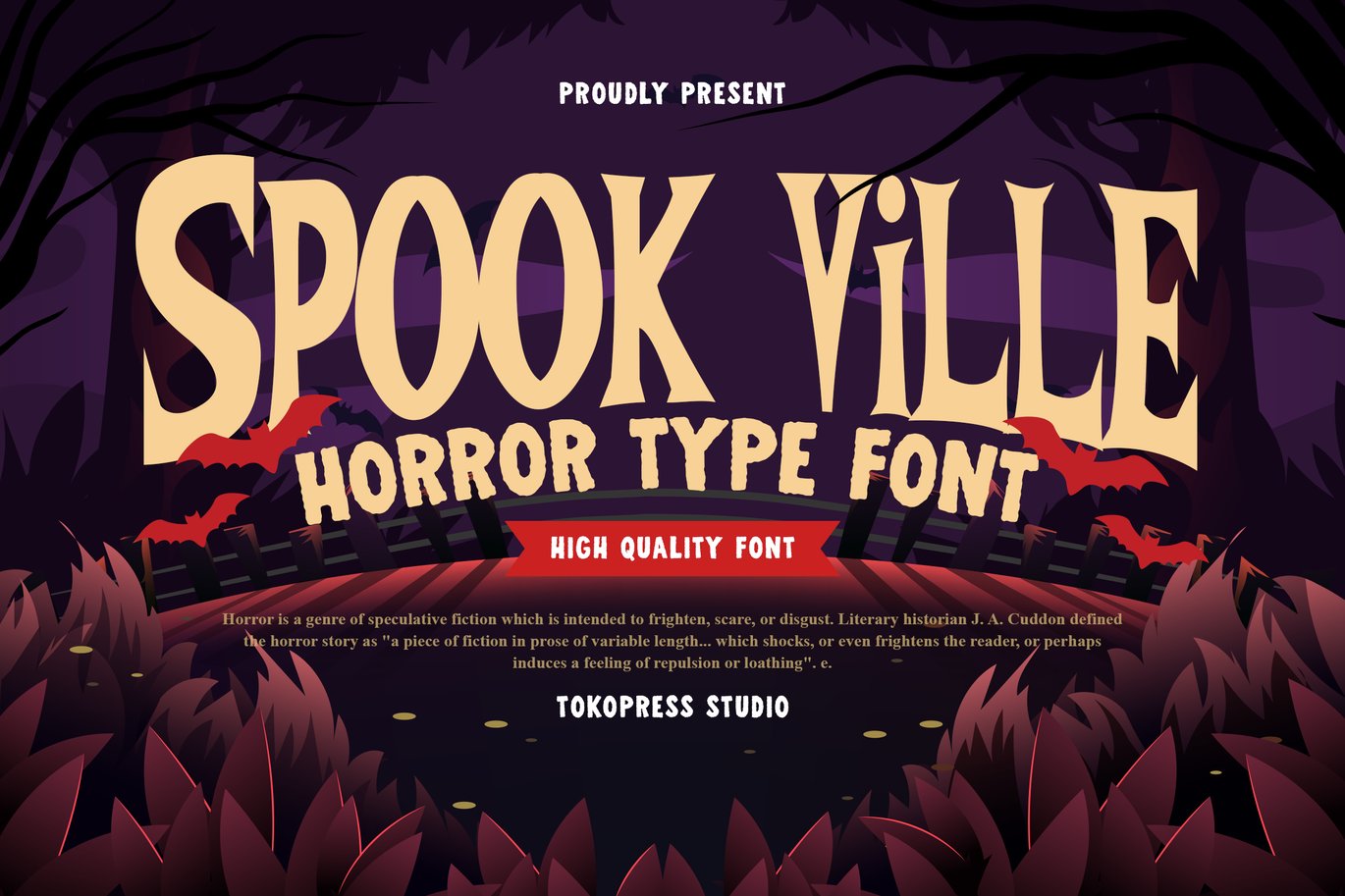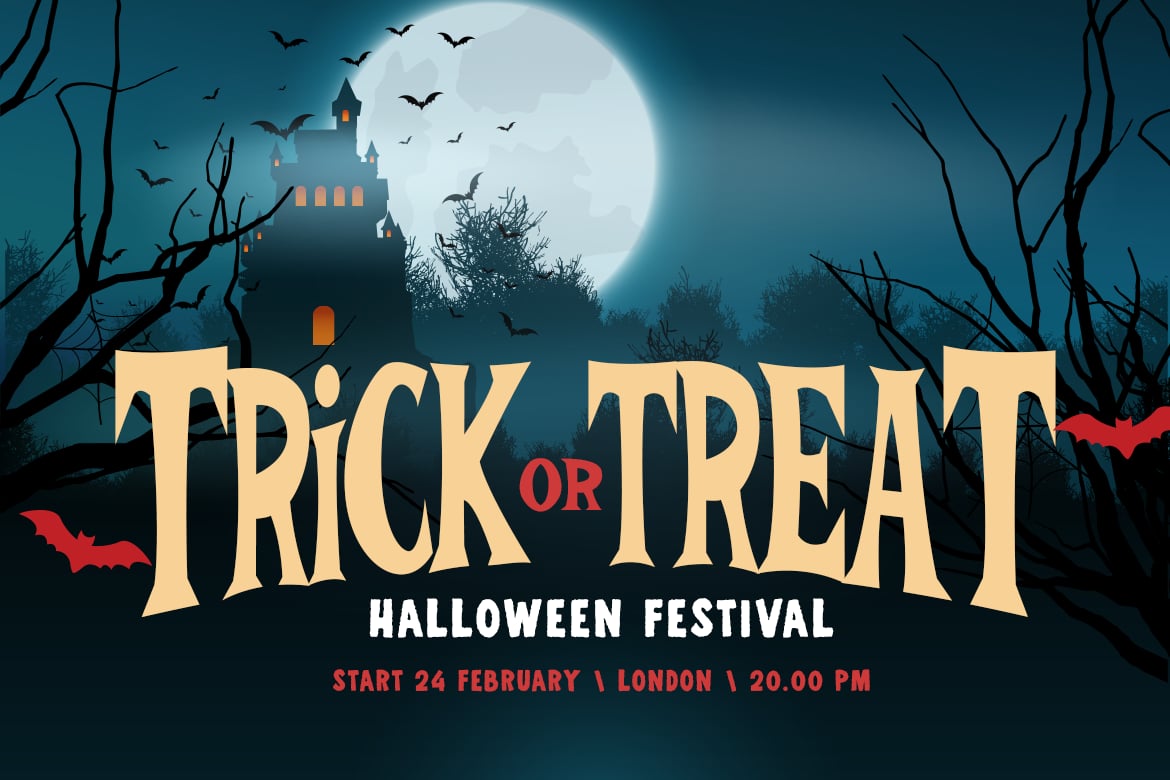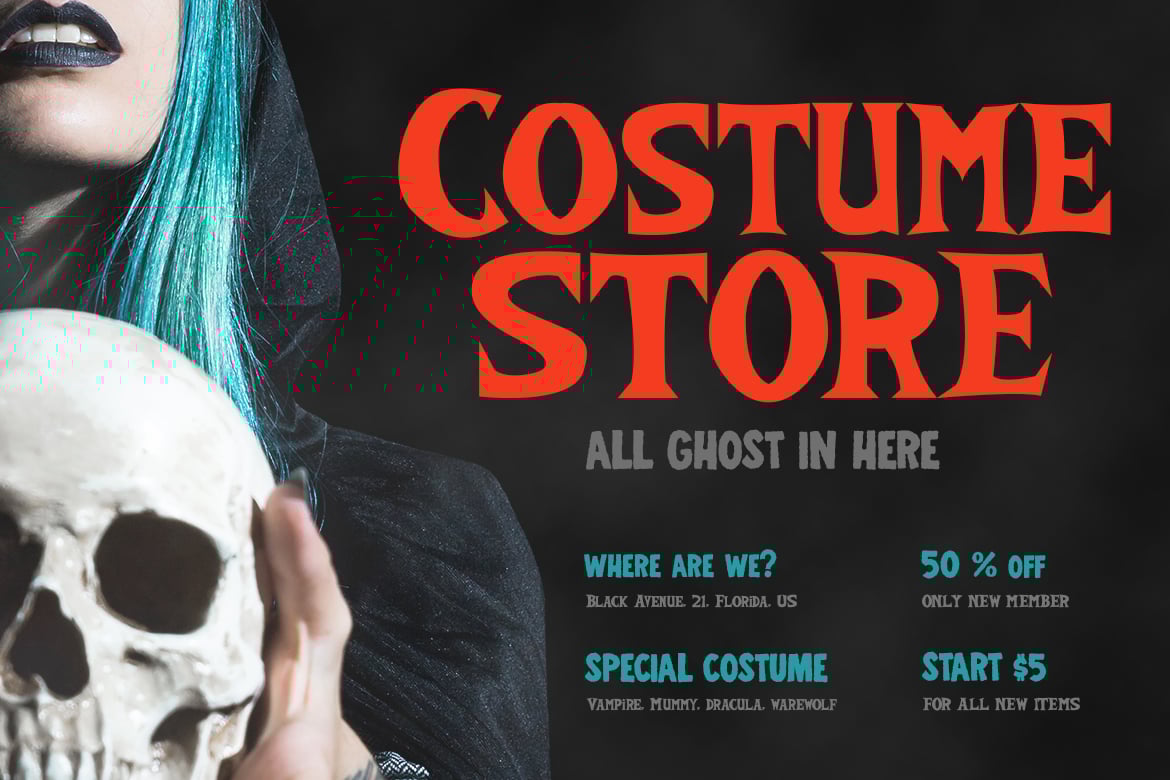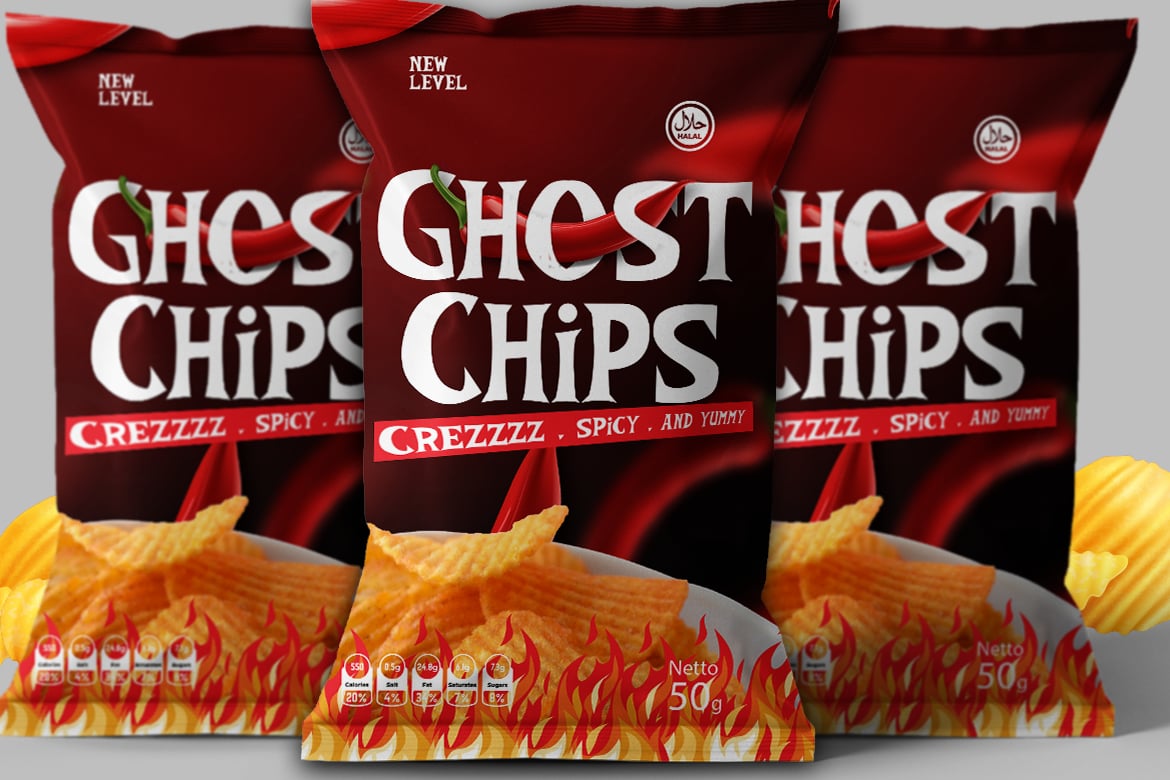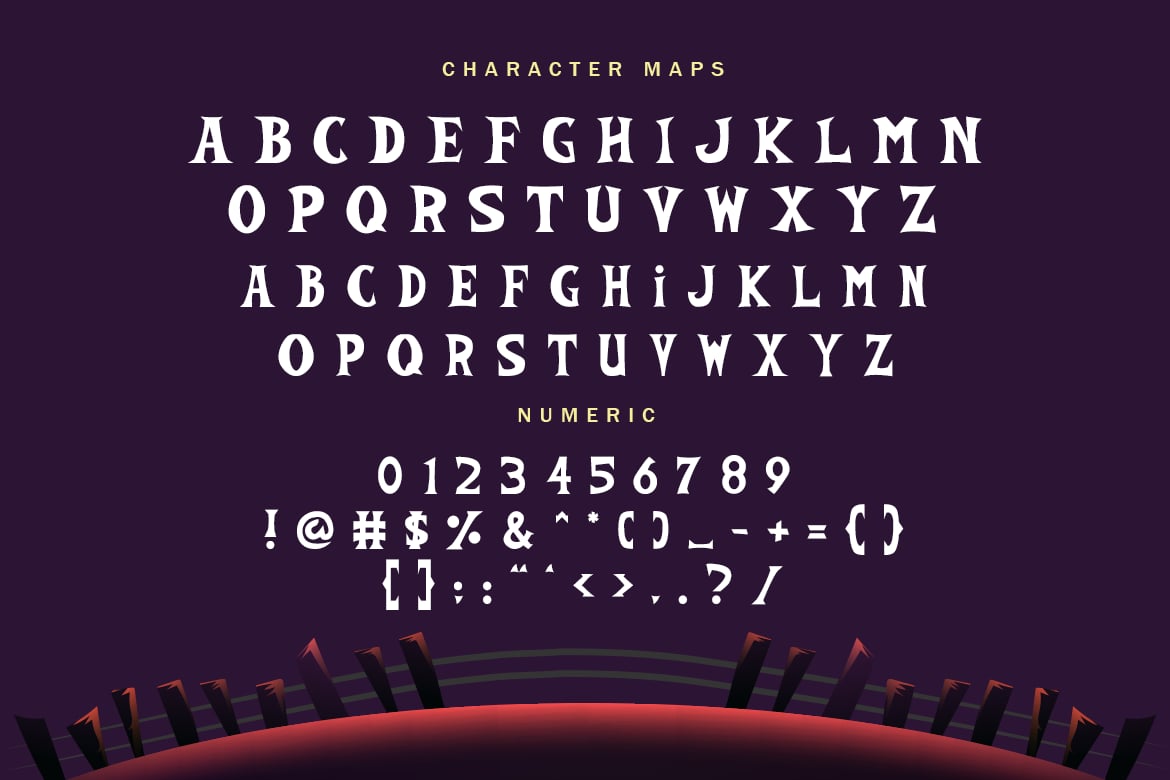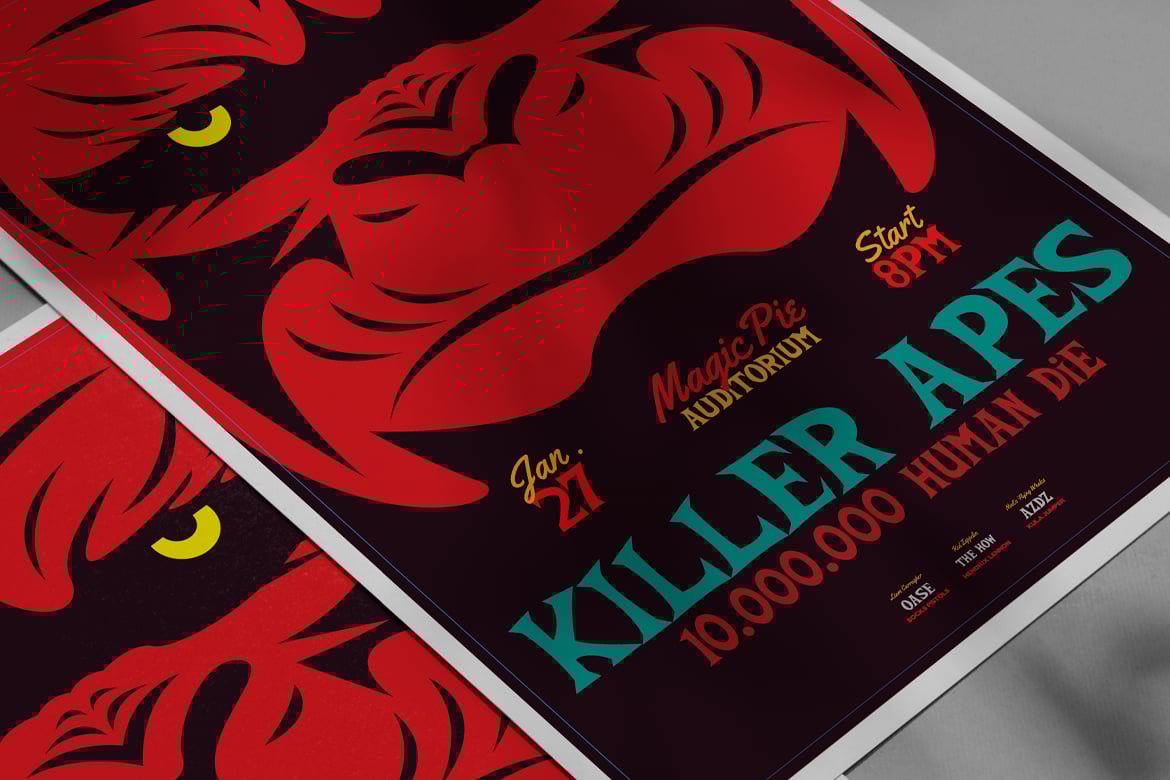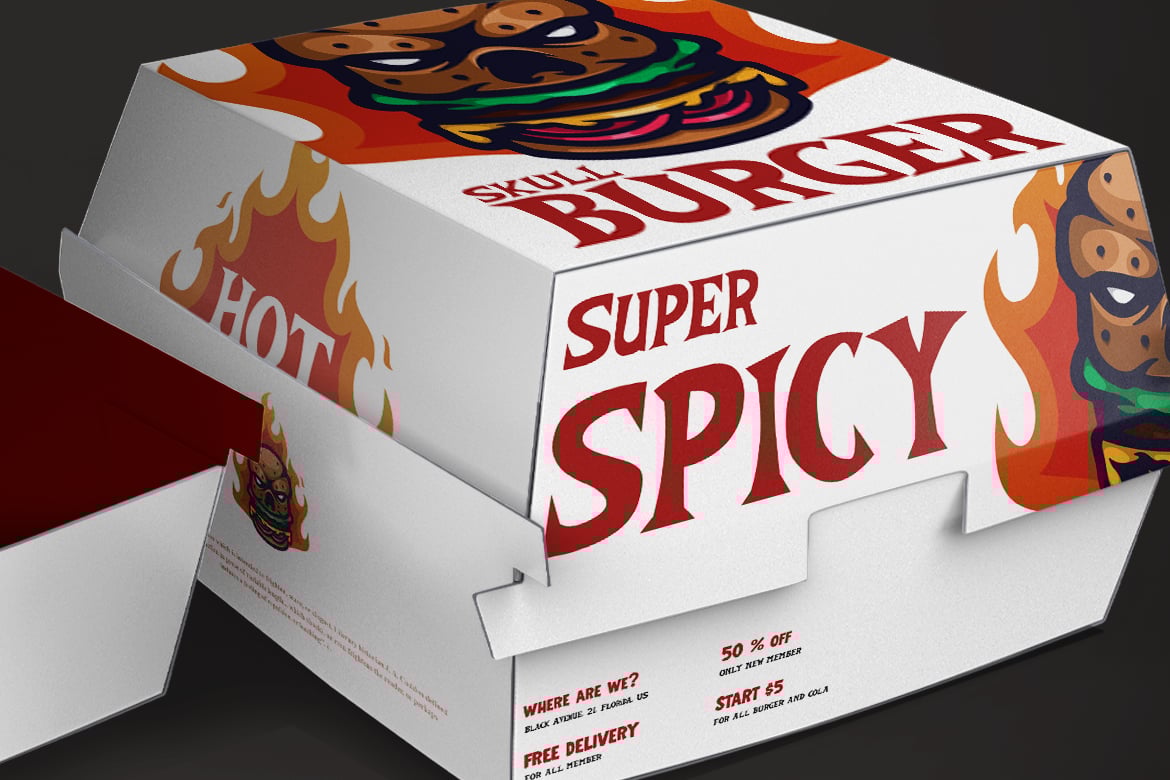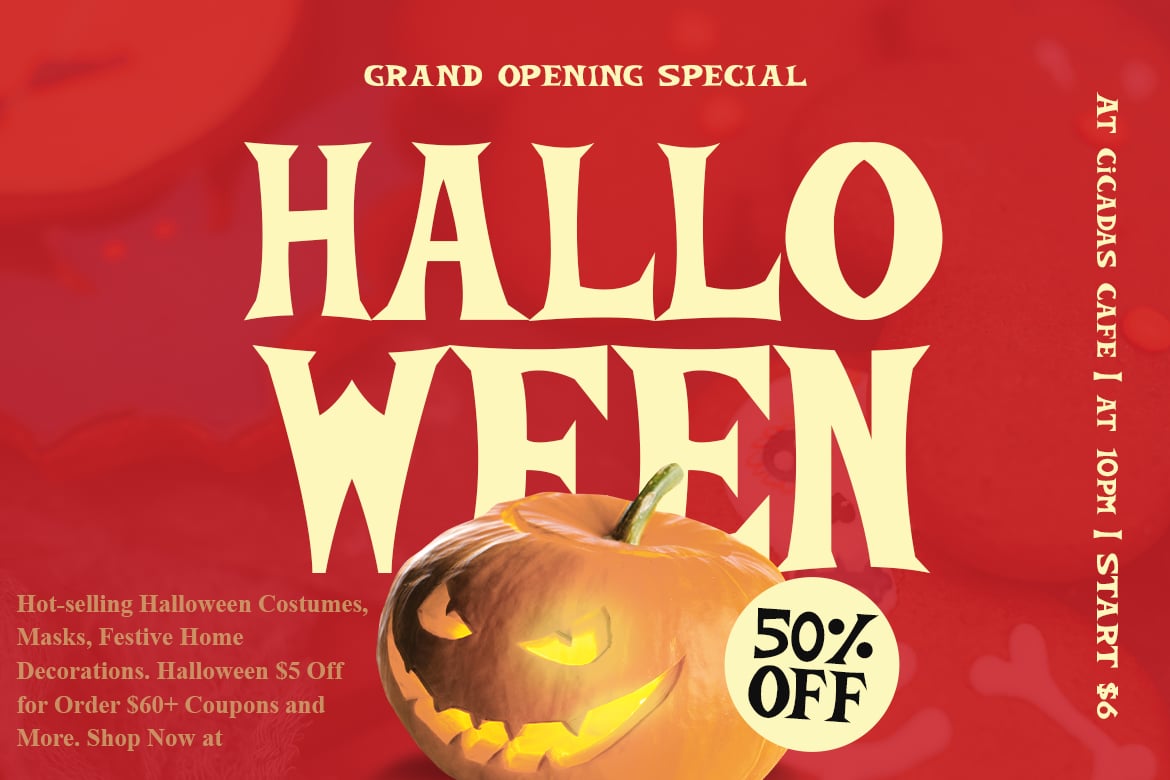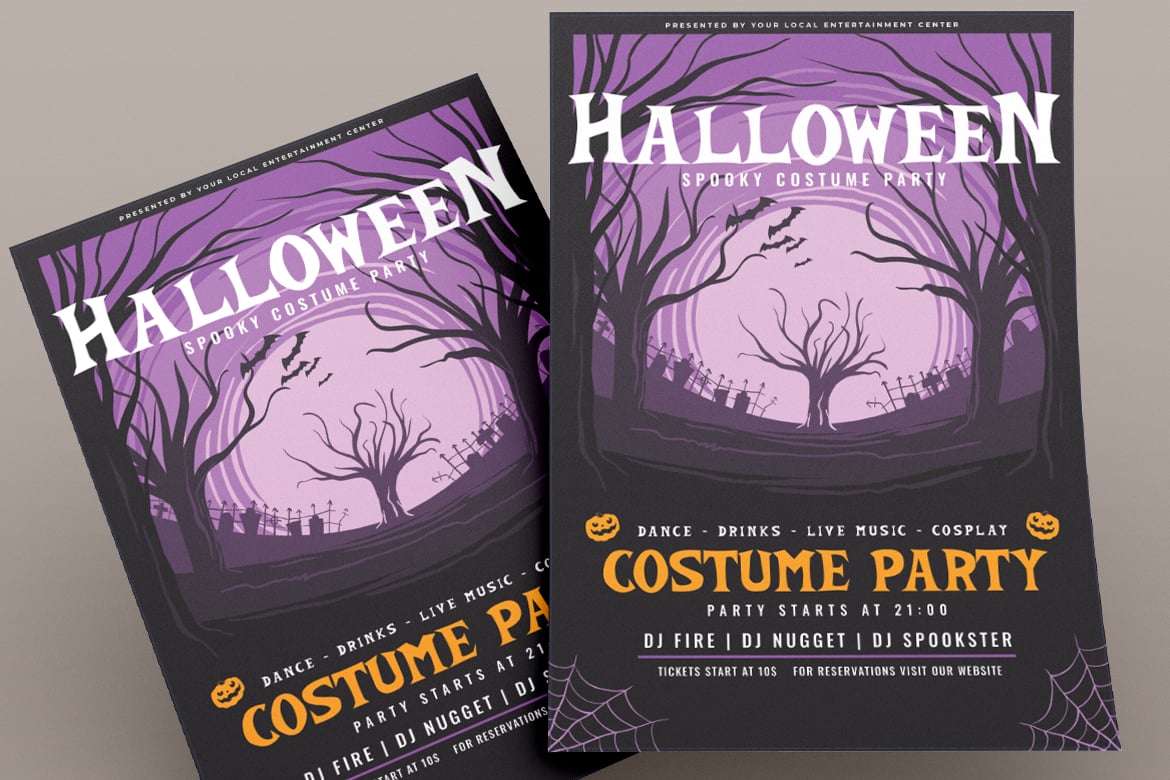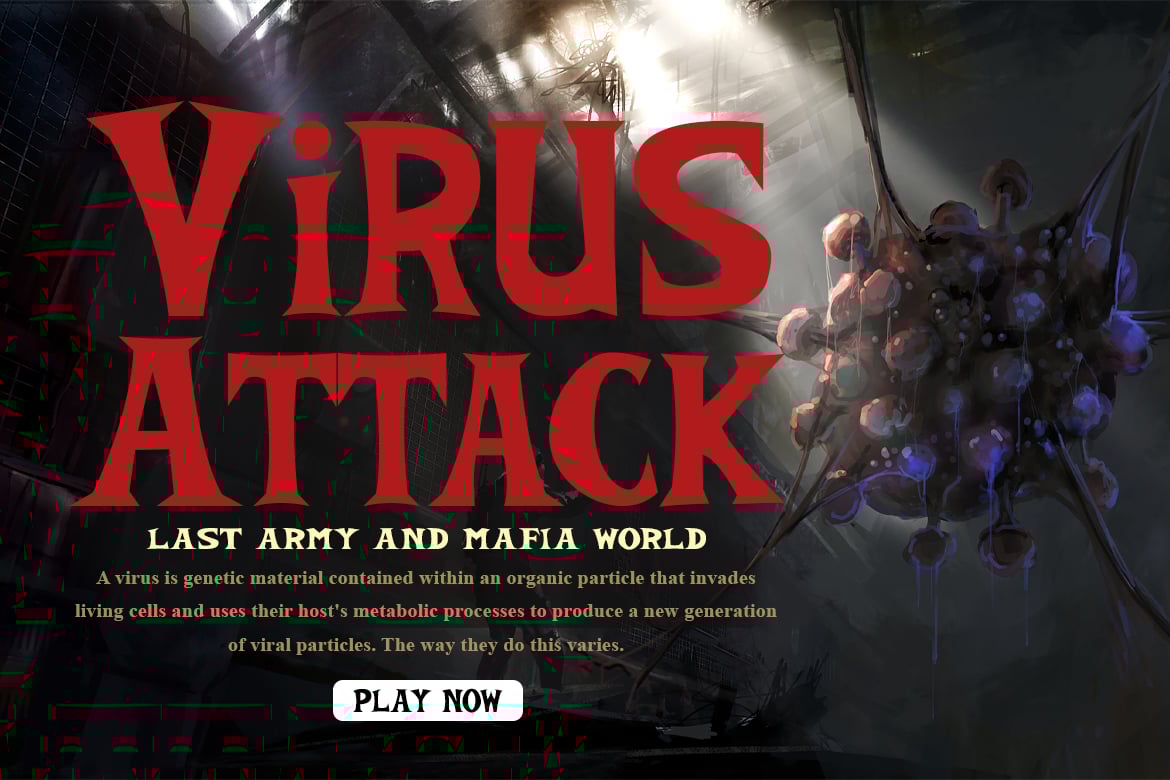
Spook Ville – Scary Font
Owl hooting, freezing wind blowing, the wolves howling….and you hear a scratching sound coming.
It’s all terror and horror in Spook Ville.
Suit perfectly for mystery gaming market audiences, halloween poster, movie title, fun restaurant/ cafe menu, magazine, youtube covers, youtube thumbnails, social media page covers and so on…